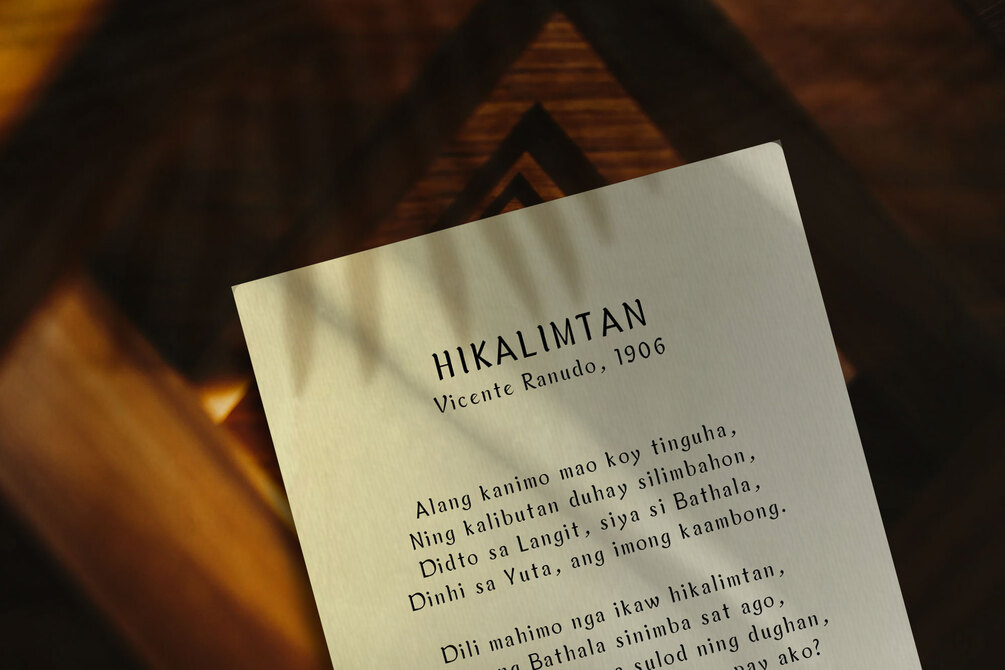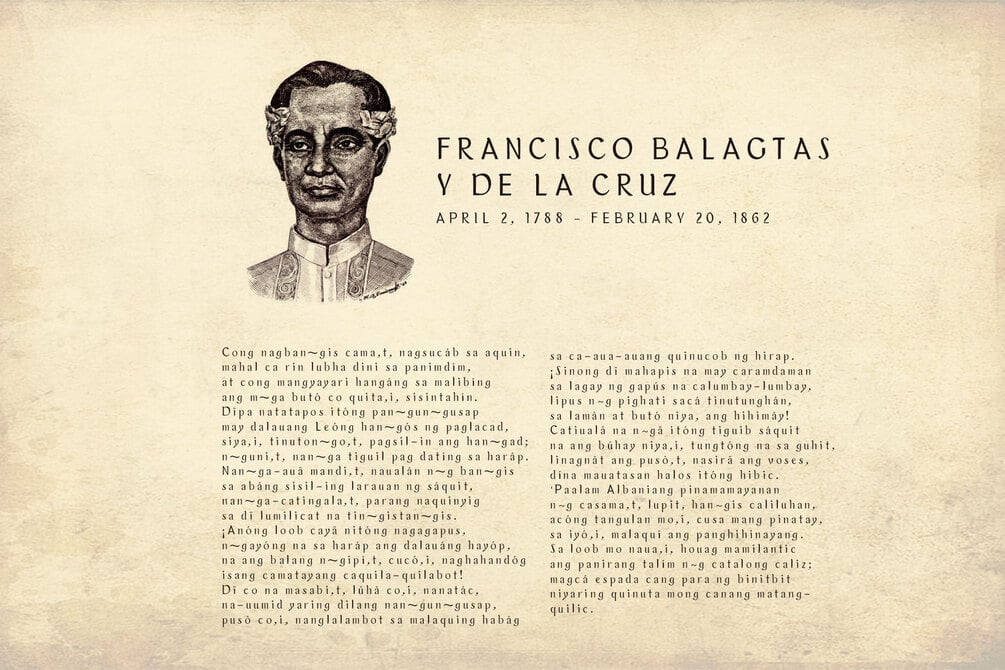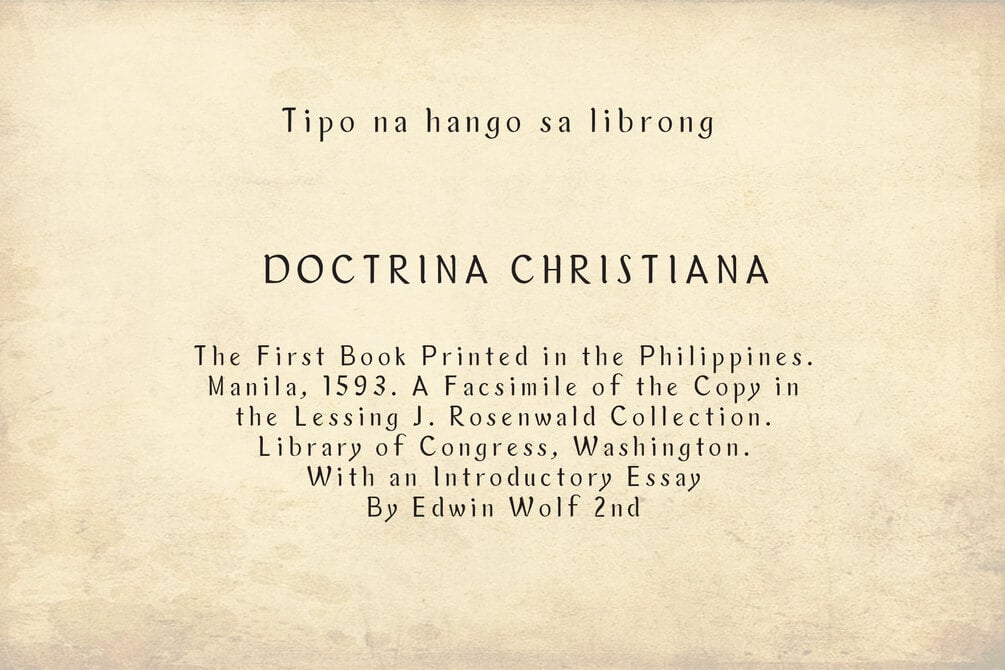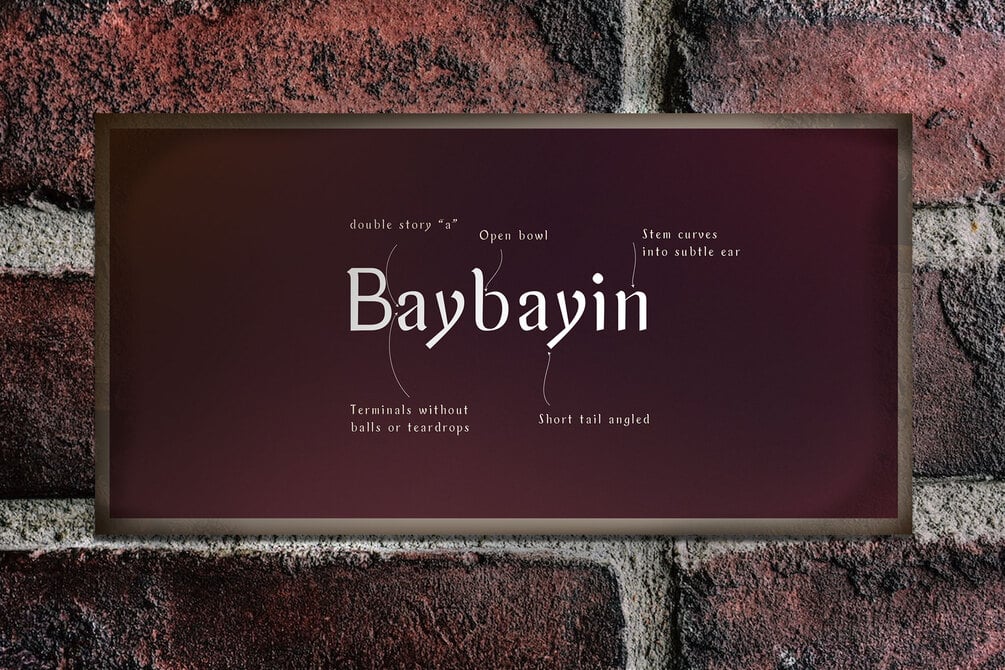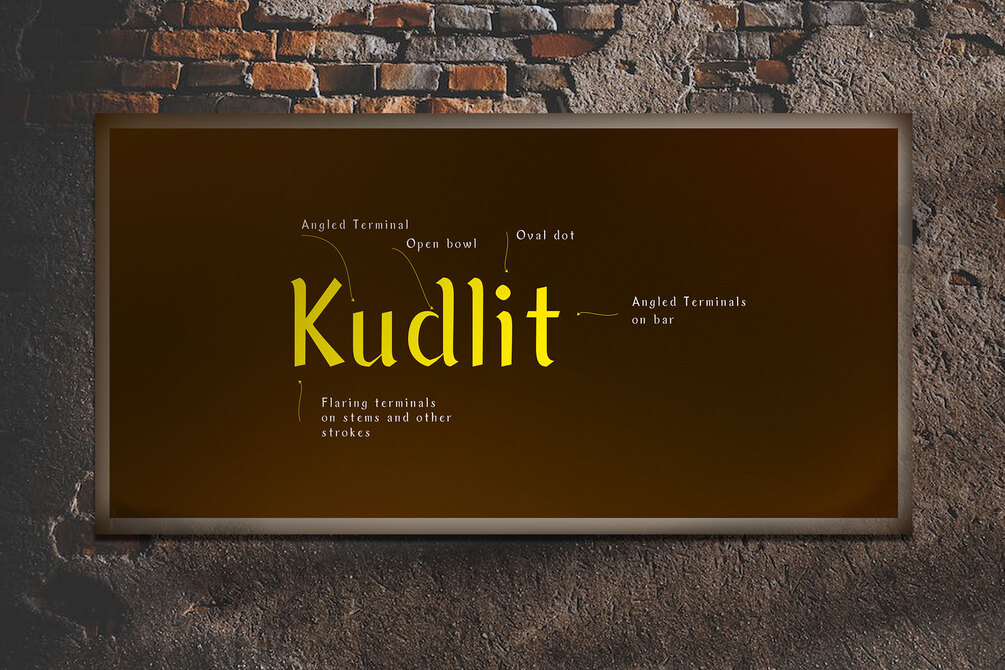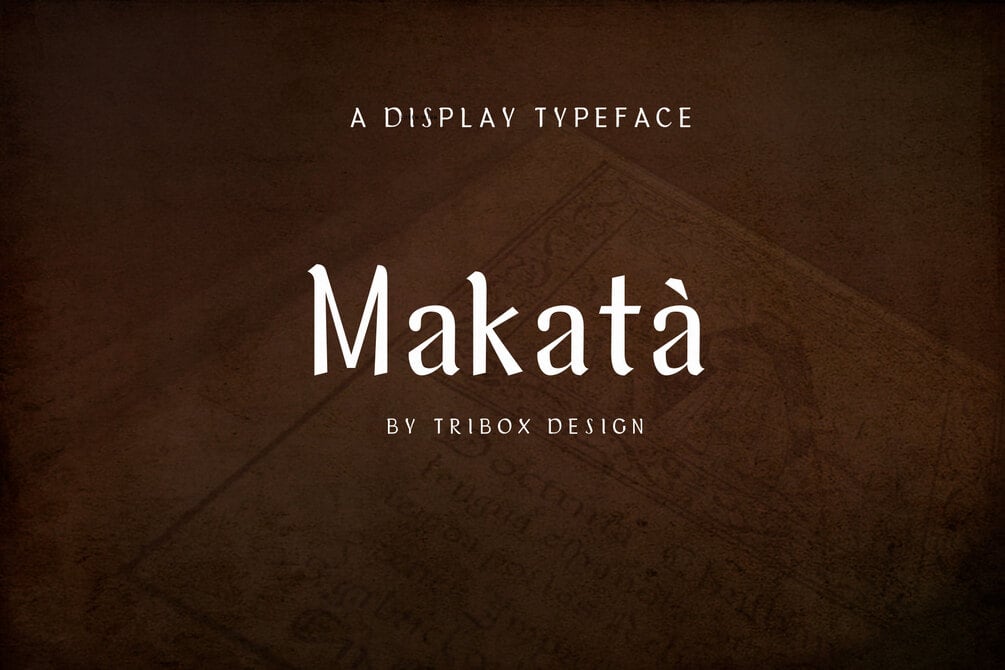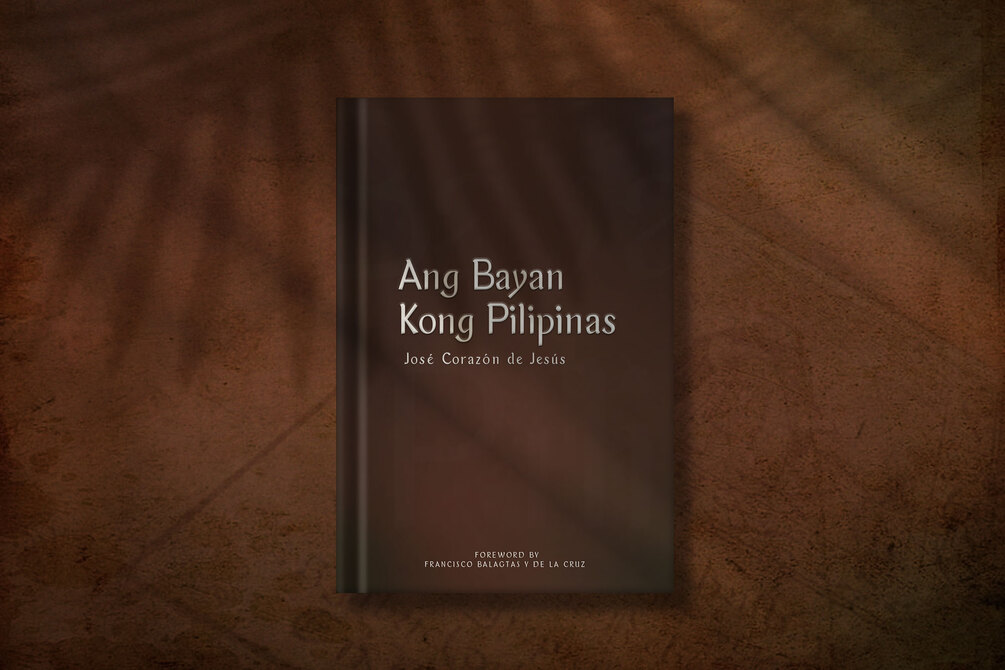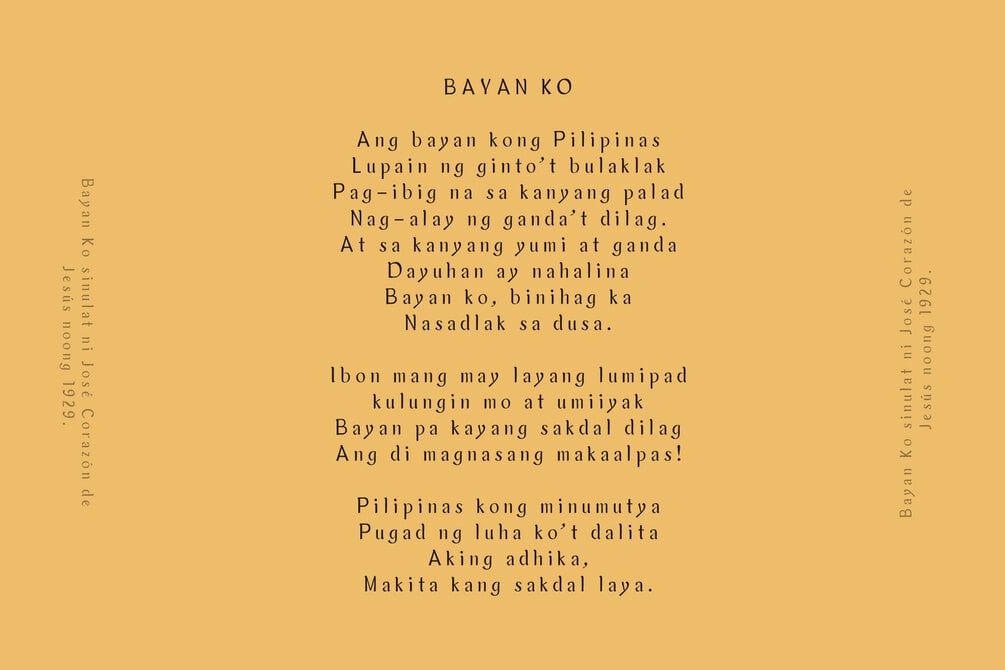
TD Makata
Definition
Makatà is a Tagalog word that means “poet”. Sometimes it refers to fluency in Tagalog/Filipino Language (or magaling mag Tinagalog).
The Briefest History
The Philippines has a rich literary history beyond the works of its most prominent writer, José Rizal. However, while Rizal primarily wrote in Spanish, many of his contemporaries wrote in the local languages.
The late Francisco Balagtas, considered the King of Poetry in the Philippines, was one of the greatest Tagalog poets and littérateurs during the Spanish rule in the country. One of his most famous works is “Florante at Laura”.
Vicente Ranudo was also a Filipino Visayan writer, poet laureate, and Cebu provincial civil servant. He wrote for various pre-war periodicals, including the first Cebuano newspaper, Ang Suga, and was considered the father of Cebuano poetry.
About TD Makatà Font
TD Makatà is a typeface based on the font used in the book “Doctrina Christiana”, the first book printed in the Philippines.
The “Doctrina Christiana” holds one of the earliest examples of printed Tagalog in Romanized and Baybayin script. Baybayin was a writing system based on an Indic script, which was developed prior to contact with the Spanish. The script is evidence of the Philippines’ connection to larger Southeast Asian trends, particularly the use of Indic writing for local languages.
The Challenge
Doctrina Christiana is considered one of the most important books, not because it was the first book printed in the Philippines but because of its valuable contribution to the tradition, language, and culture of the Filipinos.
What is the challenge?
1. Text used in local books can be difficult to read.
2. Text in many local books are not properly spaced.
What the team offers:
1. Re-create each letter.
2. Provide the right kerning for each letter.
3. Reproduce the font and make it available.
4. Explore the new publishing possibilities of Philippine poetry.
The Team Solutions
Team Tribox Design created the font to improve the old font print of Doctrina Christiana. Each letter is designed for better readability even in small sizes, particularly for books, and is designed for poets, writers, and anyone who needs a font used in publishing.
The following are the key features of the typeface:
1. Flaring terminals on stems and other strokes
2. Open bowl
3. Oval dots
4. Doubled story “a”
5. Single Story “g”
6. Stem curves into a subtle ear
7. Short-tail angled
8. Terminal without balls or teardrops